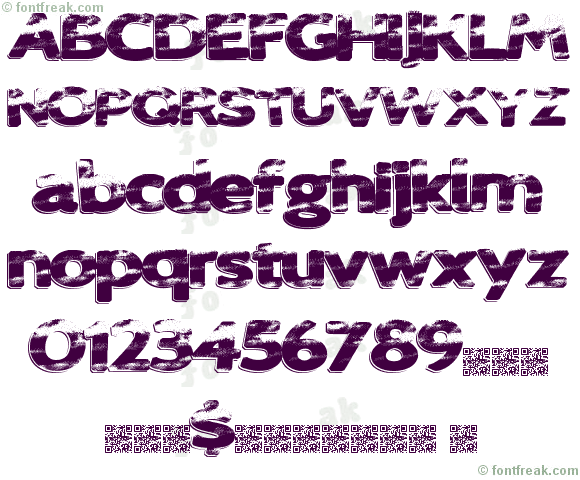
SprungBreakers
About SprungBreakers
The SprungBreakers font, created by Xerographer Fonts in 2013, embodies a distinctive display style that captures attention with its playful yet bold aesthetics. This font falls under the category of decorative typefaces, designed to evoke a sense of fun and creativity. Its unique visual characteristics include varying stroke weights, which give it a dynamic appearance, while the overall contrast adds depth and visual interest. The spacing is thoughtfully executed, allowing for easy readability without losing its eye-catching charm. Decorative elements such as rounded edges and a slight grunge effect contribute to its playful demeanor, making it stand out in various applications.
SprungBreakers is ideal for a range of creative projects. It can be effectively used for wedding invitations, where its whimsical style can add a touch of personality and celebration. Movie posters also benefit from its bold characters that demand attention and convey an exciting theme. Additionally, this font works wonderfully on restaurant menus, particularly for establishments that want to showcase a casual and inviting atmosphere. Graphic designers looking to inject energy into their projects will find this font an excellent choice, as will small business owners aiming to create a memorable brand identity. Content creators seeking to enhance their visual storytelling will also appreciate the unique flair of SprungBreakers.